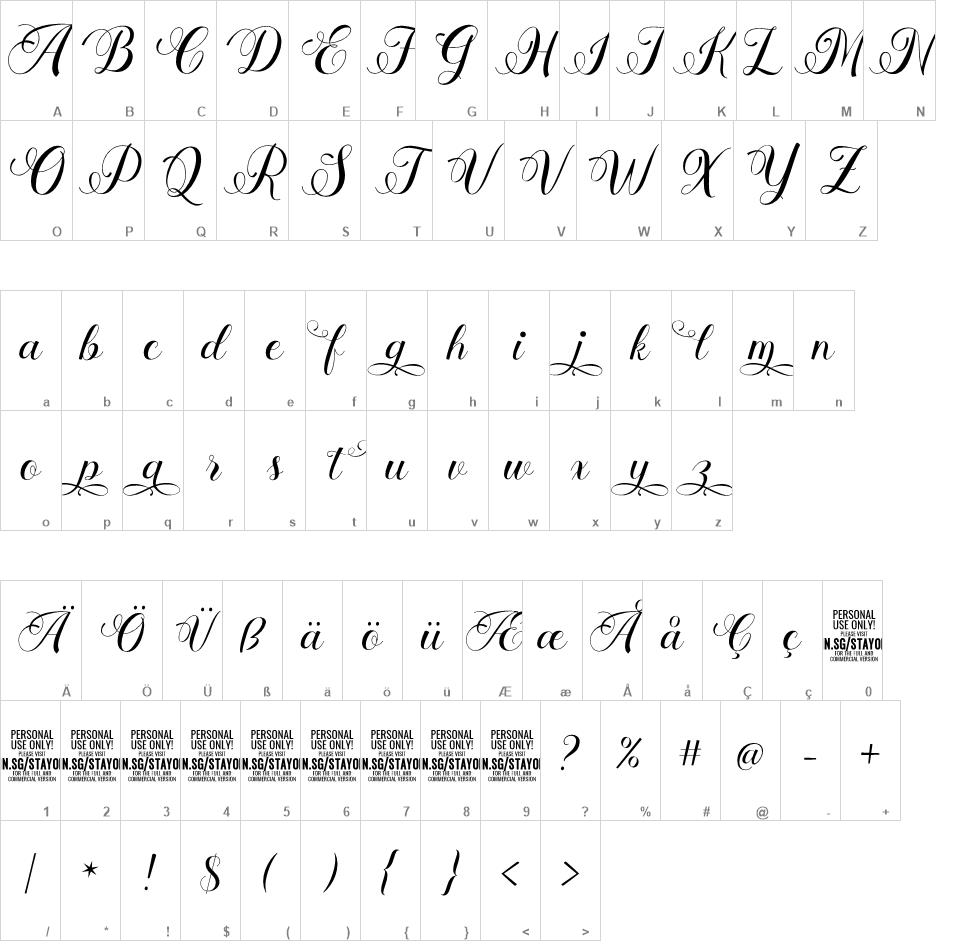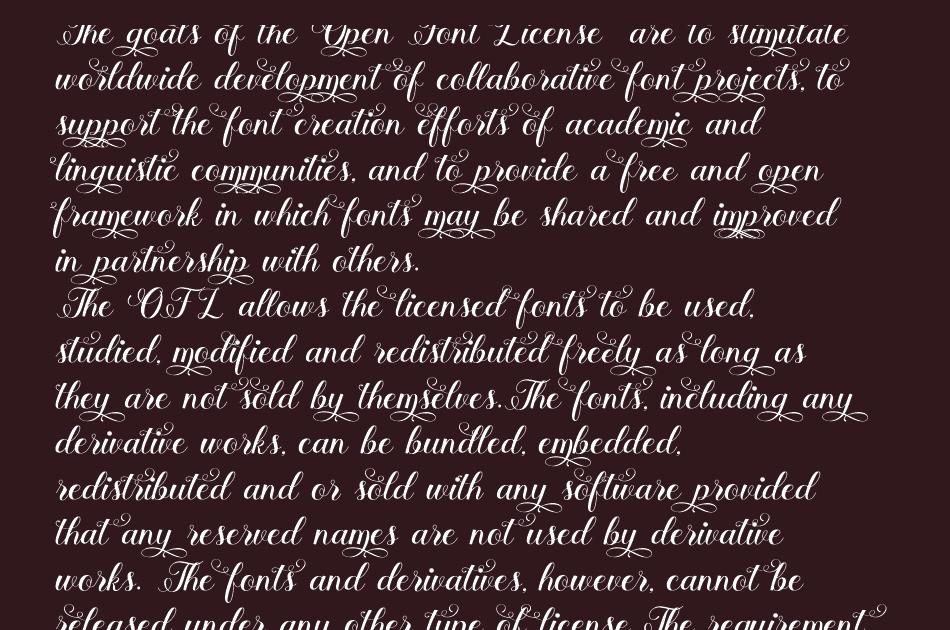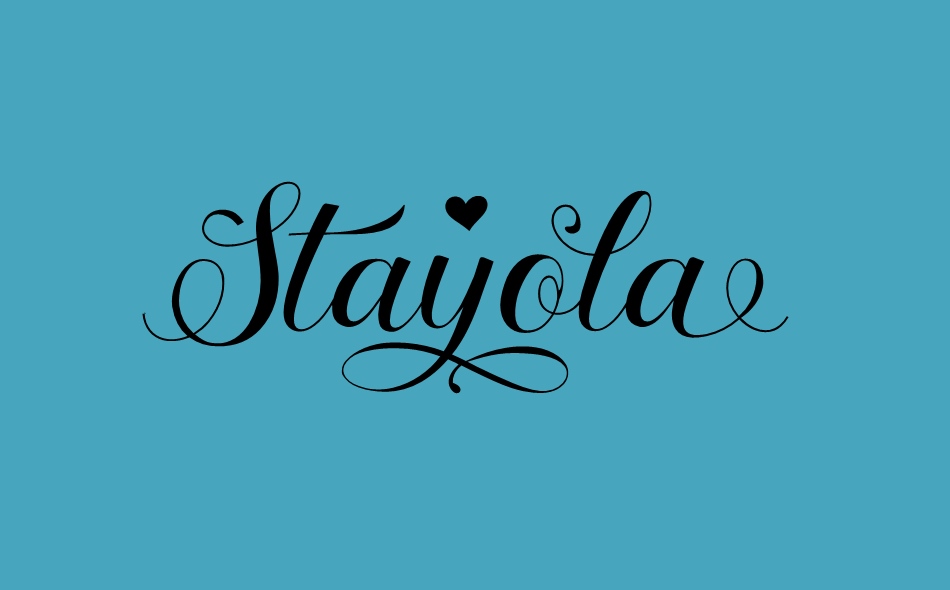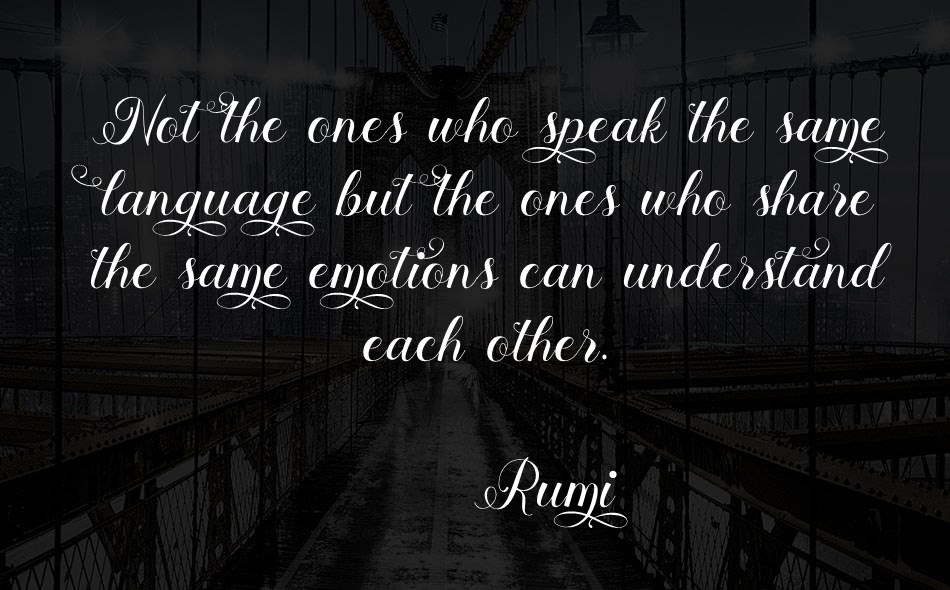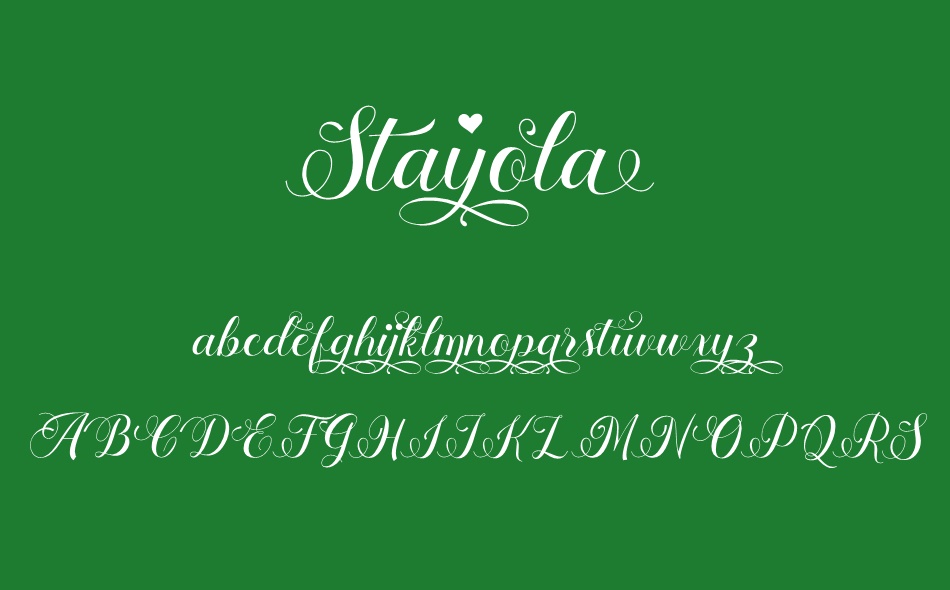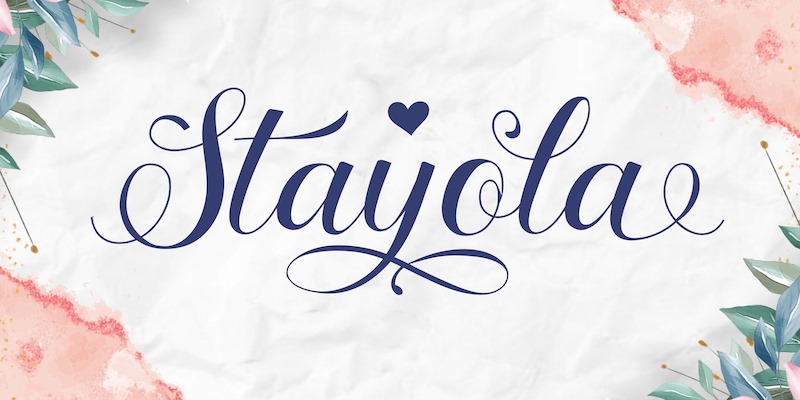
Stayola font
Stayola is a beautiful calligraphic typeface.
This script font has strong contrasts and wonderful flow. Its feminine twists and swirls makes for a lettering with a charming style and quirky personality.
The Stayola family consists of eight distinct font styles: The weights Light, Bold, Black, each as the cute Heart style and the decorative Swash variation.
The font is built with advanced OpenType functionality and has a guaranteed top-notch quality, containing stylistic and contextual alternates, ligatures and more features; all to give you full control and customizability. It has extensive lingual support, covering all Latin-based languages, from North Europe to South Africa, from America to South-East Asia. It contains all characters and symbols you'll ever need, including all punctuation and numbers.